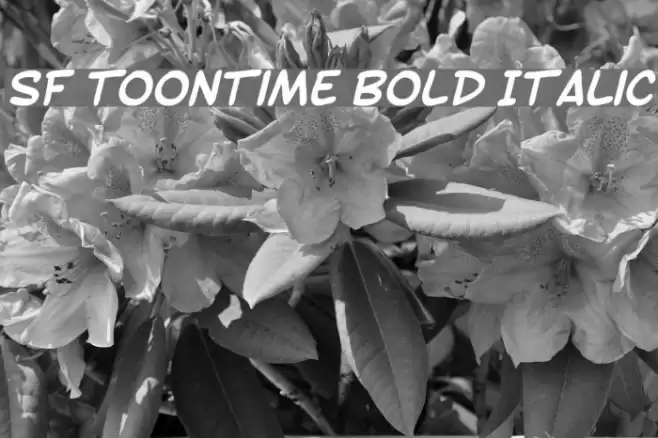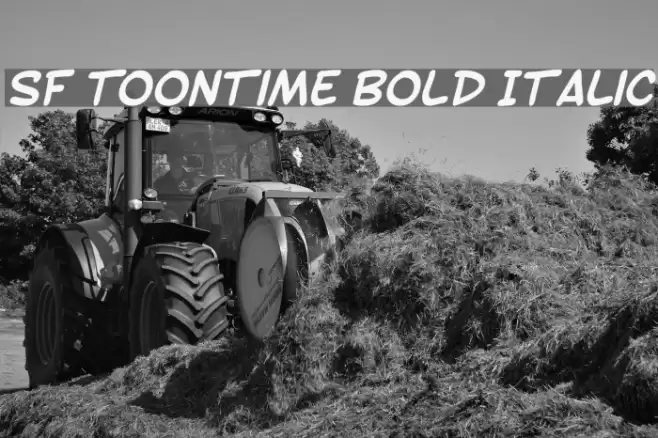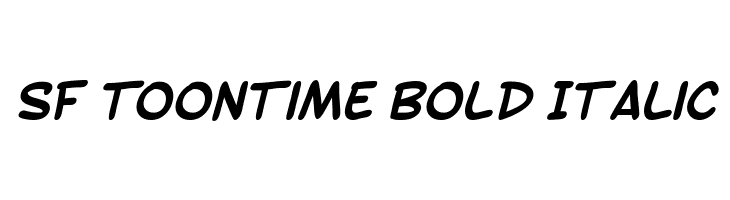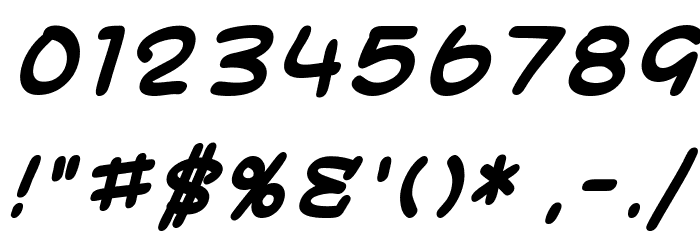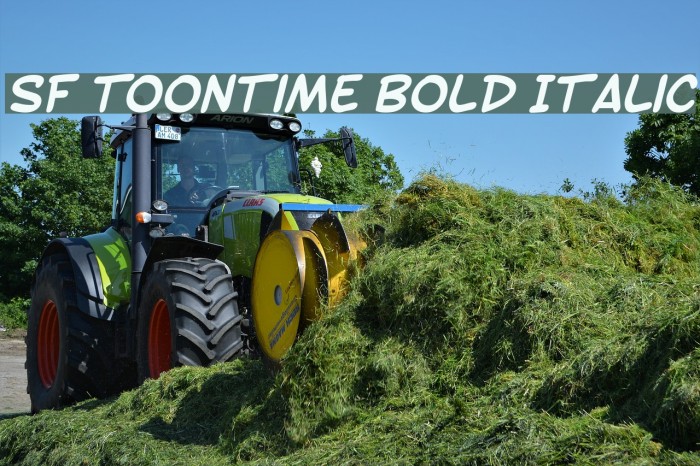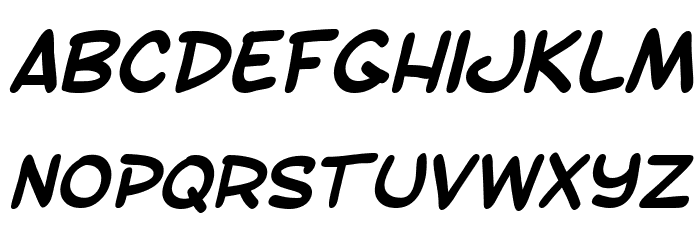
SF Toontime Bold Italic Font
SF Toontime Bold Italic Description
This playful and bold font features a handwritten style with a slight slant, giving it an energetic and dynamic appearance. The characters are rounded and smooth, with a consistent stroke width that adds to its boldness. The font's informal and friendly look makes it ideal for projects that require a fun and approachable feel. The letters are slightly condensed, enhancing readability while maintaining a compact form. The font includes a full set of uppercase and lowercase letters, numbers, and a variety of special characters, making it versatile for various design needs.
A bold, italic, handwritten font with a playful and dynamic style from Comic fonts.
- Proposed Projects: Ideal for children's books, comic strips, playful branding, and casual invitations.
- Overall Style: Playful
- Use Case: Headlines, Logos, Informal Text